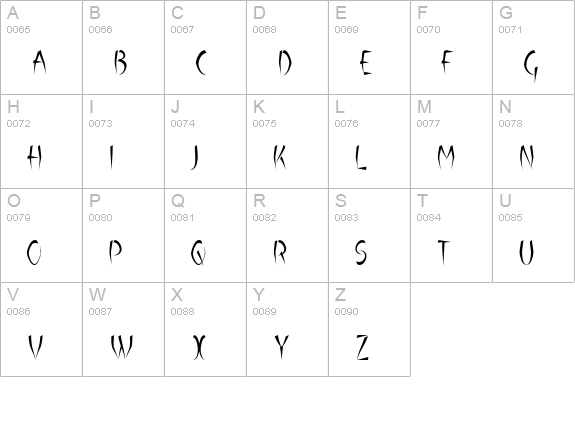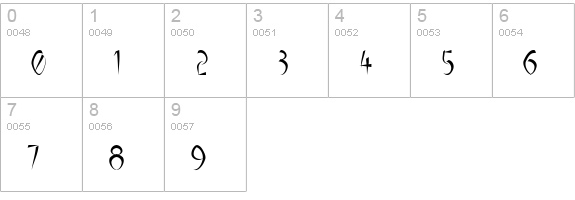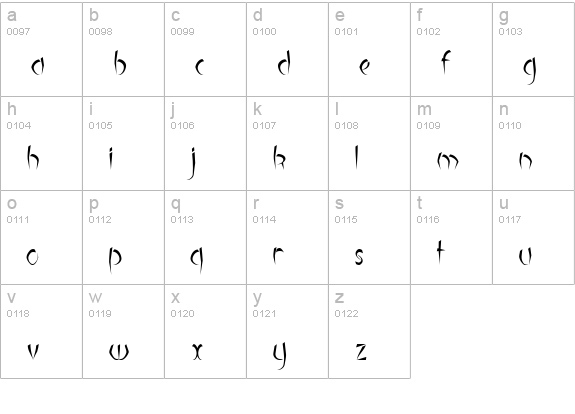
Luteous Maximus font is a stunning display typeface that exudes elegance and sophistication. Its bold and distinctive letterforms make it perfect for headlines, titles, and other prominent text in your designs. The unique serifs and intricate details add a touch of luxury to any project. What sets Luteous Maximus font apart is not only its striking appearance but also the fact that it is completely free to use. Yes, you read that right - this premium font is available for free download at FontsMarket.com. Whether you're working on branding, packaging, or editorial design, Luteous Maximus font will elevate your project to the next level with its timeless style and unparalleled charm. Don't miss out on this opportunity to enhance your designs with this exceptional typeface. Download Luteous Maximus font today and unleash your creativity like never before.